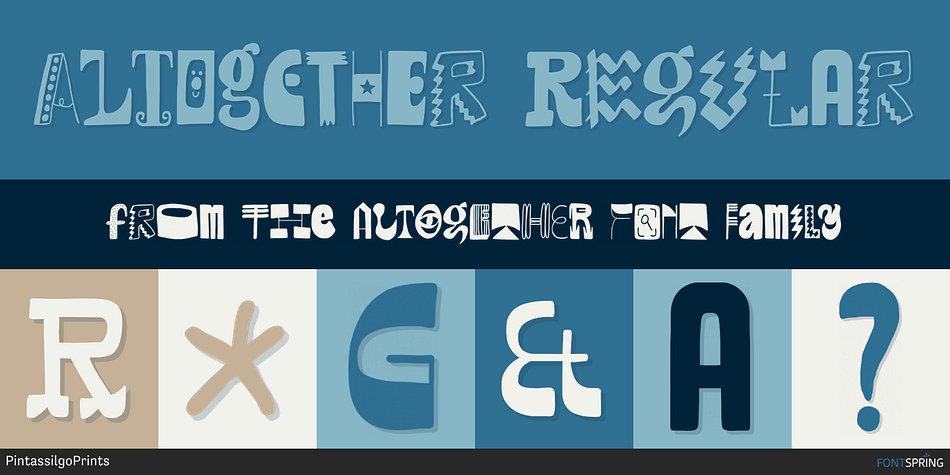
Altogether Regular
Designed by Ricardo Marcin and Erica Jung, Altogether is a hand drawn and novelty font published by PintassilgoPrints.
Oodles of doodles! Altogether brings not two or three, but eight - yep! - flavours for each letter. Original, creative, authentic flavours. Sometimes sweet, sometimes fun, sometimes weird. A bit eccentric, let’s say. So we can say it different.
Let the autopilot cycle all these glyphs by simply turning on the contextual alternates feature inside your application. If you prefer, handpick your choices from a glyphs palette. And, mainly, have fun!